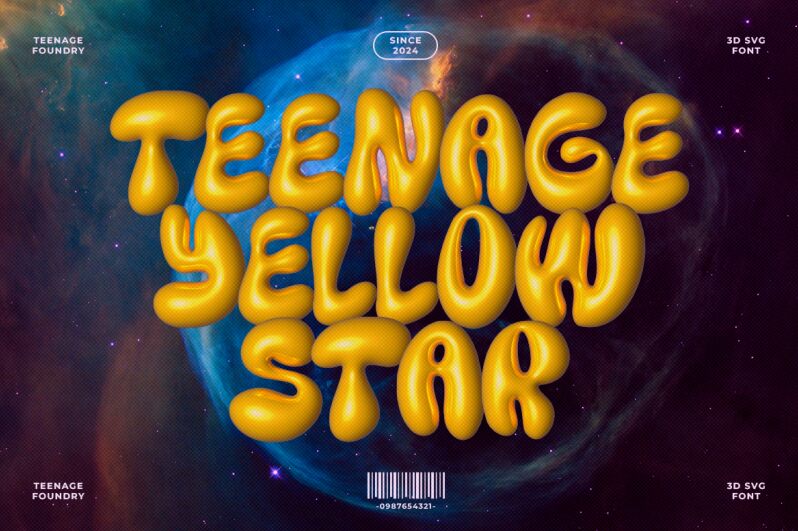
Teenage Yellow Star font designed by Teenage Foundry is a free cartoon font created to let your projects get the groove on. The font is three-dimensional and bubbly, bringing a life of its own to the designs it decorates. This youthful and playful style offers an energetic experience, one that stands out because of the effortless realistic shading and bold colors.
Bring back the oldies and introduce the best parts of the 60s and the 70s with psychedelic prints for kids’ books, cartoons, and learning resources with topics like music, fashion, and civil rights. Or simply use this font for typography artwork for interior decorations.